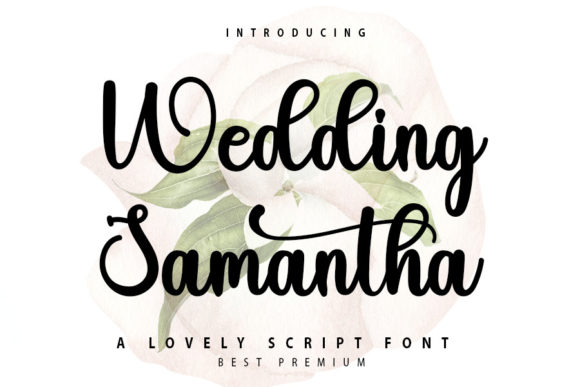
Wedding Samantha Font: Elevate Your Designs with Elegance and Sophistication
The world of typography is vast and diverse, offering a multitude of fonts to suit various design needs. Among these, the Wedding Samantha font stands out for its unique blend of elegance, refinement, and modernity. This beautiful script font is designed to add a touch of class and sophistication to any design project, making it a popular choice for a wide range of applications, from logos and branding to invitations, stationery, and wedding designs.
What is Wedding Samantha Font?
Wedding Samantha is a stunning script font that boasts a classy, elegant, and modern look. Its refined appearance makes it an ideal choice for designers looking to add a touch of sophistication to their projects. The font’s versatility allows it to be used across various platforms, including logos, branding, invitations, stationery, wedding designs, social media posts, and more.
Key Features of Wedding Samantha Font
- Elegant and Refined Design: Wedding Samantha font features a beautifully crafted design that exudes elegance and refinement.
- Classy and Modern Look: The font’s classy and modern appearance makes it perfect for designs that require a touch of sophistication.
- PUA Encoded: Wedding Samantha font is PUA encoded, allowing easy access to all the amazing glyphs and ligatures.
- Versatile: The font can be used for a wide range of applications, including logos, branding, invitations, stationery, wedding designs, social media posts, and more.
Benefits of Using Wedding Samantha Font
Using Wedding Samantha font offers numerous benefits, including:
- Enhanced Visual Appeal: The font’s elegant and refined design adds a touch of sophistication to any design project, making it more visually appealing.
- Increased Versatility: Wedding Samantha font can be used across various platforms, making it a great addition to any designer’s toolkit.
- Easy to Use: The font’s PUA encoding makes it easy to access and use the various glyphs and ligatures, saving designers time and effort.
- Unique and Distinctive: Wedding Samantha font’s unique design ensures that your design projects stand out from the crowd, making them more memorable and impactful.
Design Applications of Wedding Samantha Font
Wedding Samantha font can be used in a variety of design applications, including:
- Logos and Branding: The font’s elegant and refined design makes it perfect for logos and branding projects that require a touch of sophistication.
- Invitations and Stationery: Wedding Samantha font is ideal for invitations, stationery, and other paper goods that require a classy and modern look.
- Wedding Designs: The font’s beautiful script design makes it a popular choice for wedding designs, including wedding invitations, programs, and decorations.
- Social Media Posts: Wedding Samantha font can be used to create visually appealing social media posts that stand out from the crowd.
Tips and Tricks for Using Wedding Samantha Font
Here are some tips and tricks for using Wedding Samantha font:
- Use it Sparingly: Use Wedding Samantha font sparingly to avoid overwhelming your design.
- Pair it with Other Fonts: Pair Wedding Samantha font with other fonts to create a unique and visually appealing design.
- Experiment with Colors: Experiment with different colors to find the perfect combination that suits your design.
Wedding Samantha font is a beautiful and refined script font that offers a unique blend of elegance, sophistication, and modernity. Its versatility, ease of use, and stunning design make it a popular choice for a wide range of design applications. Whether you’re a designer, a small business owner, or an individual looking to create visually appealing designs, Wedding Samantha font is an excellent addition to your toolkit.